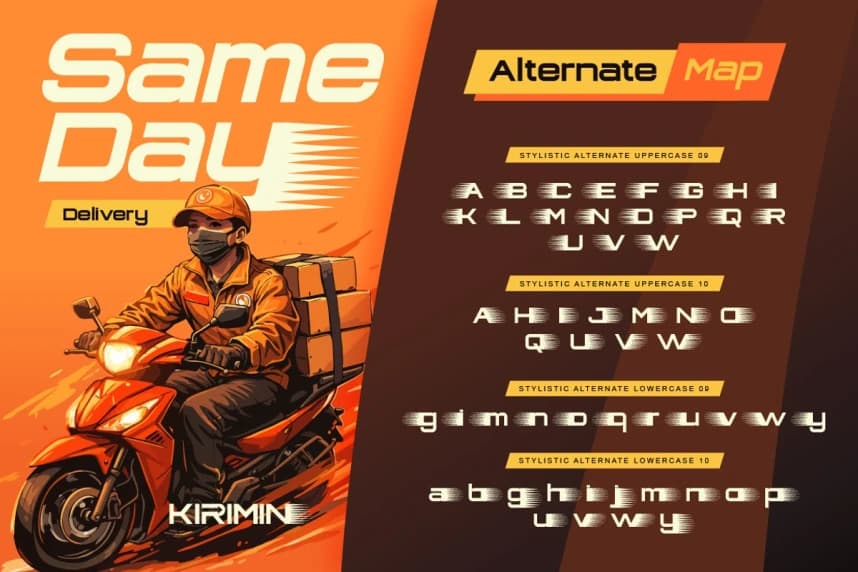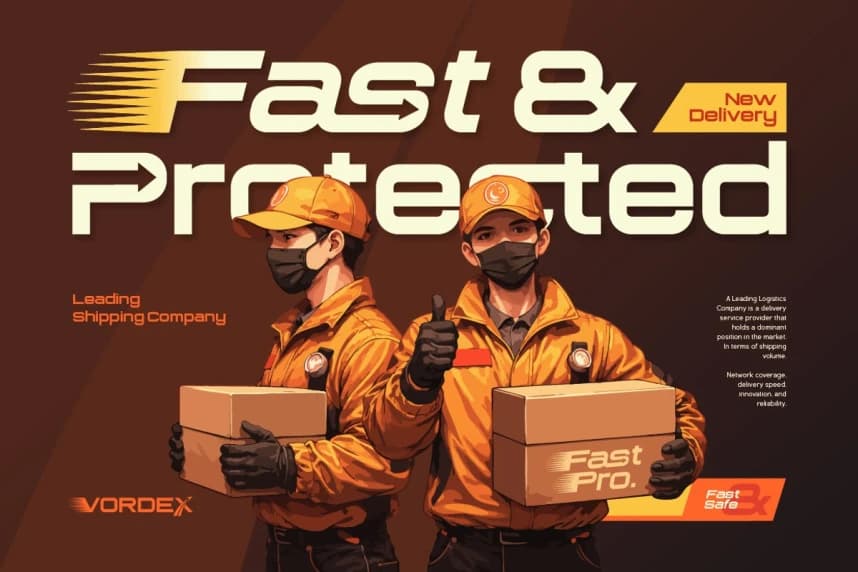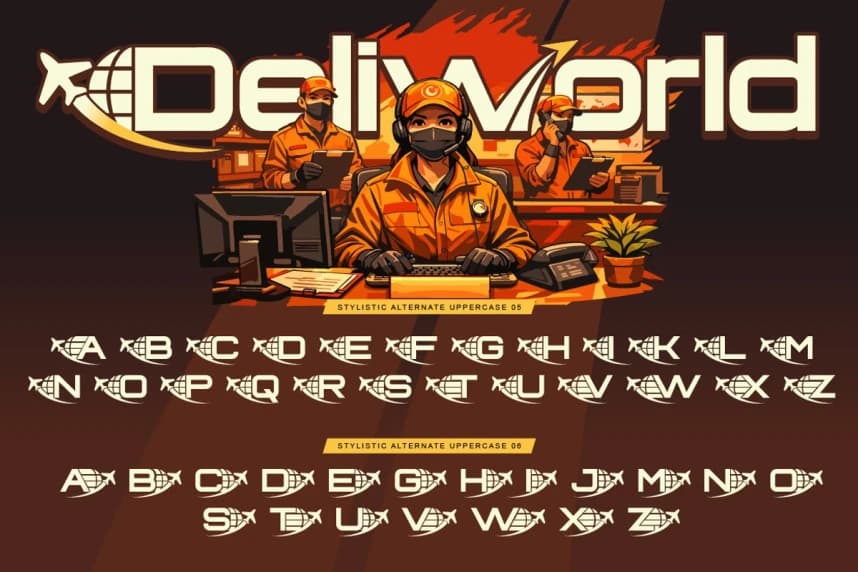
Vordex Font
Vordex Font, a bold and modern sans display font inspired by the fast paced world of logistics and delivery. Designed with strong geometric shapes and dynamic cuts, this font brings a sense of speed, efficiency, and reliability into your designs.